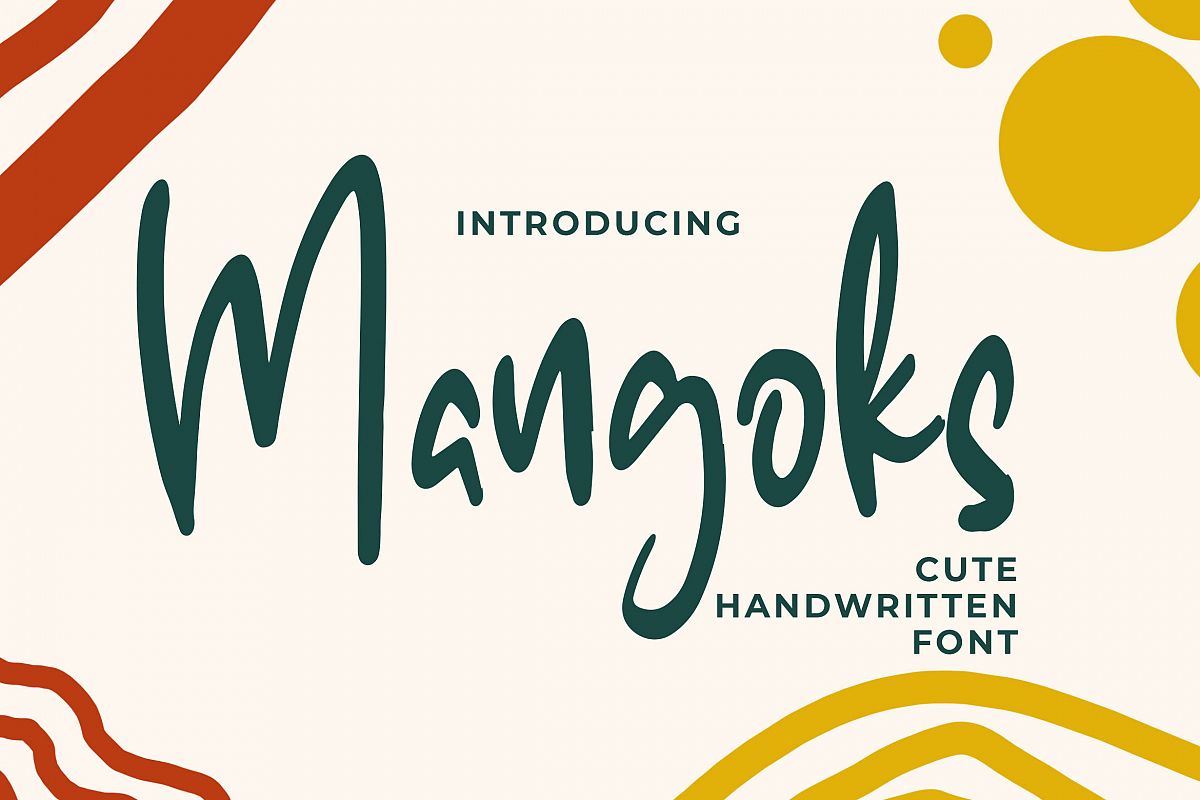
Introducing of our new product the name is The Mangoks Cute Handwritten Font. Mangoks inspired by modern calligraphy this font is a fun theme very good for signature, poster, fashion, wedding, branding etc
MULTILINGUAL ACCENT :
ŽžŠŒšŸÀÁÂÃÄÅÆÇÈÉÊËÌÍÎÏÐŁÑÒÓÔÕÖØÙÚÛÜÝßàáâãäåæçèéêëìíîïłñòóôõöøùúûüýÿ